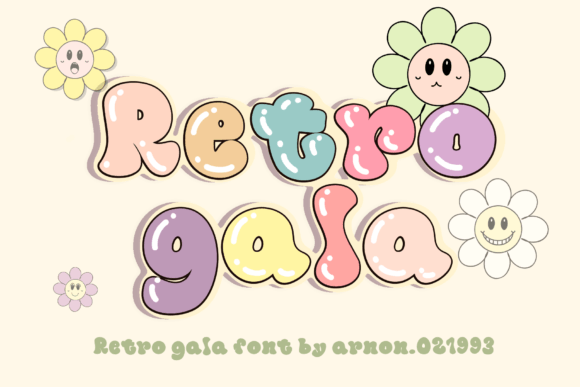
Unleash the Magic of Retro Gala: A Font That Spells Joy and Enchantment
In a world teeming with countless fonts, Retro Gala emerges as a radiant beacon of charm and elegance, captivating hearts with its irresistible allure. Step into a realm where creativity blossoms, and words dance with delight, propelled by the enchanting strokes of Retro Gala.
Retro Gala, a whimsical display font, beckons you to embrace the extraordinary, to let your imagination soar beyond the bounds of the mundane. Its playful spirit and infectious energy will illuminate your designs, adding a spark of joy to every project you undertake.
With Retro Gala, you hold the key to unlocking a treasure trove of creative possibilities. Its alluring curves and vibrant personality will transform your designs into visual masterpieces, leaving a lasting impression on all who behold them.
Picture this: a wedding invitation adorned with the graceful strokes of Retro Gala, exuding an aura of timeless romance. The font's enchanting characters dance across the page, inviting guests to a celebration filled with love, laughter, and unforgettable moments.
Or perhaps you seek to create a captivating poster for an upcoming event. Retro Gala's playful charm will draw attention like a magnet, enticing passersby with its irresistible energy. The font's vibrant colors and whimsical shapes will ignite curiosity and leave a lasting impression.
Retro Gala's versatility knows no bounds. It lends its magic to a myriad of projects, from stunning social media posts and eye-catching logos to captivating flyers and brochures. Its ability to transform ordinary designs into extraordinary works of art is truly remarkable.
Join the countless designers and creative visionaries who have succumbed to the allure of Retro Gala. Let its joyful spirit infuse your designs with a touch of magic, leaving a trail of enchantment wherever your creativity takes you.